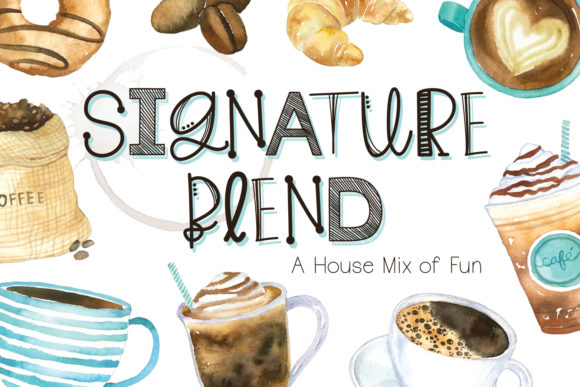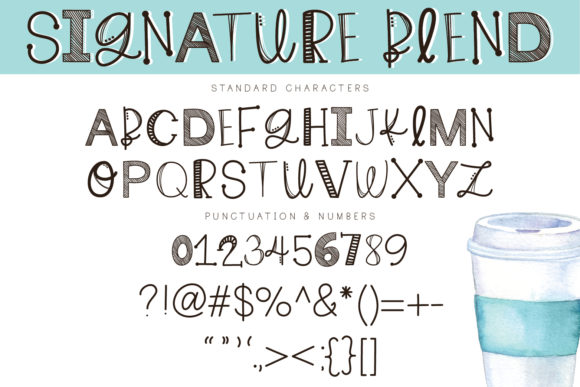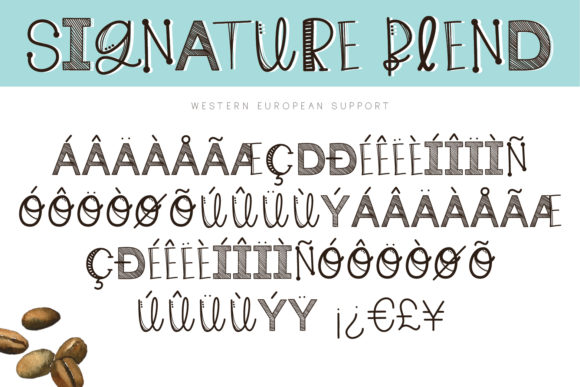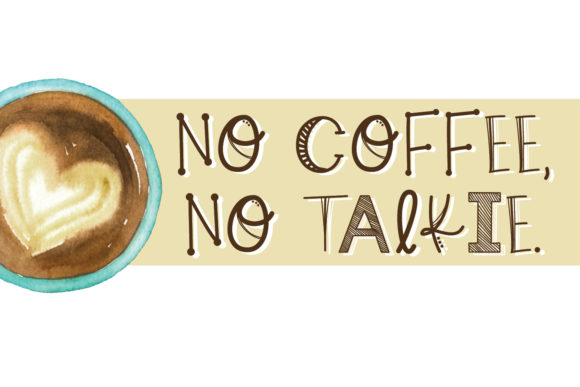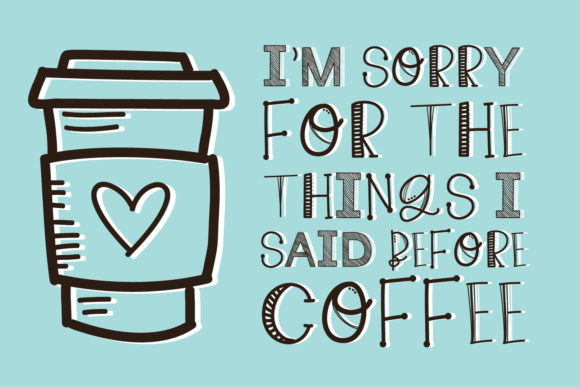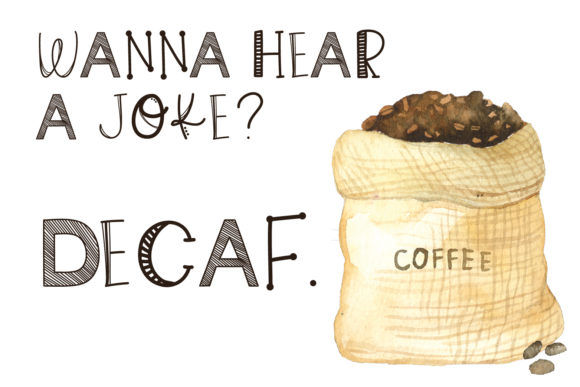
Signature Blend Font
About Signature Blend Font
Signature Blend is an incredibly unique and quirky handwritten font. Add this font to your favorite creative ideas and notice how it makes them come alive!